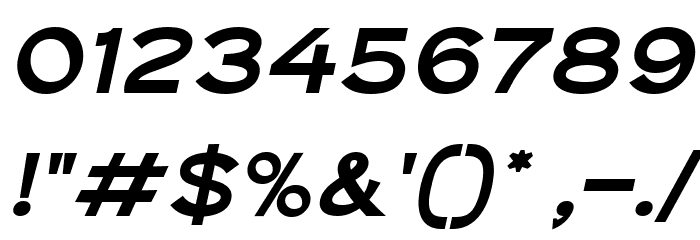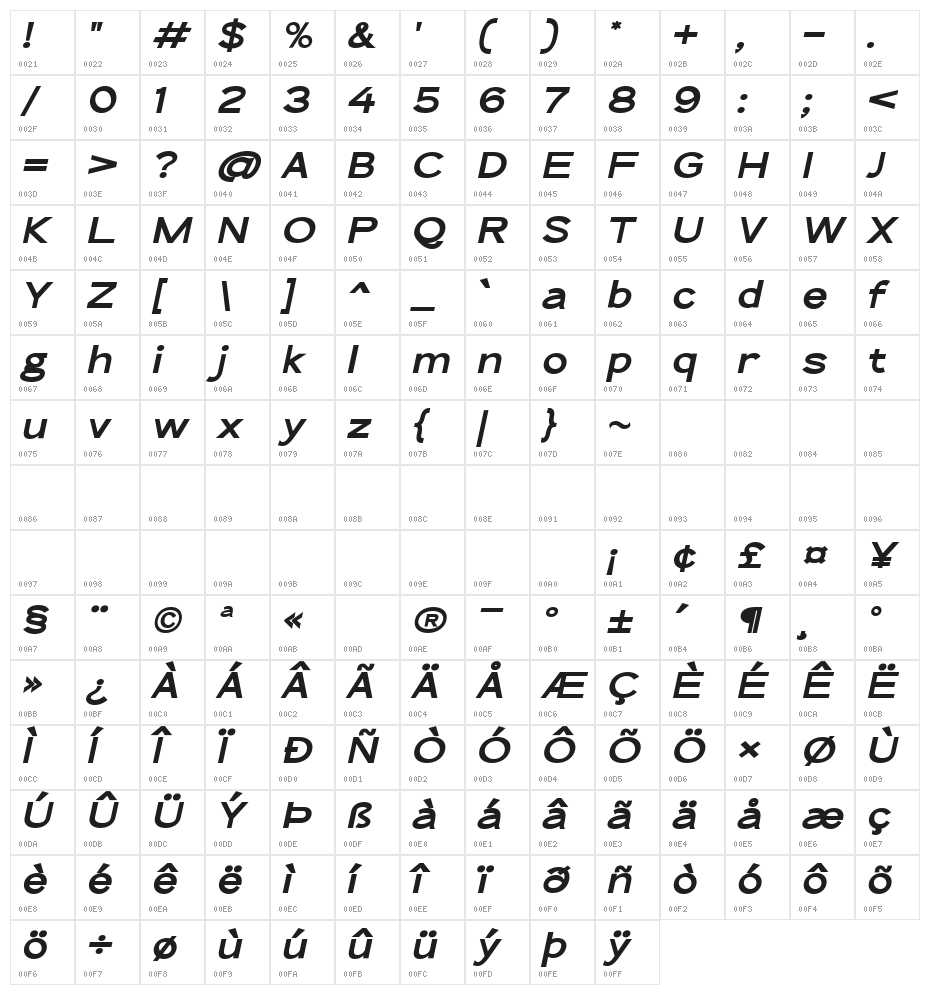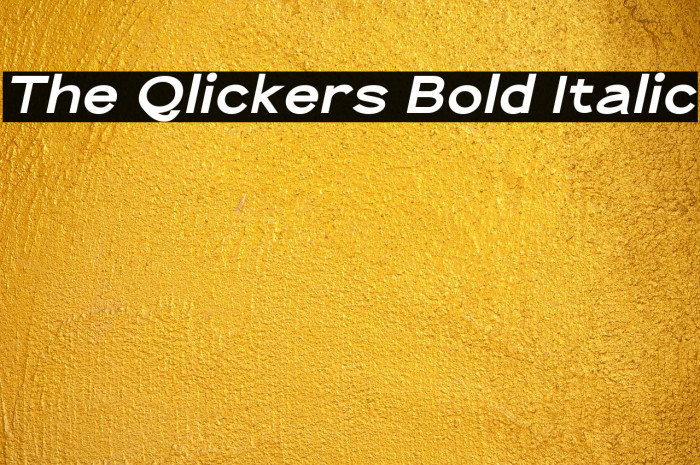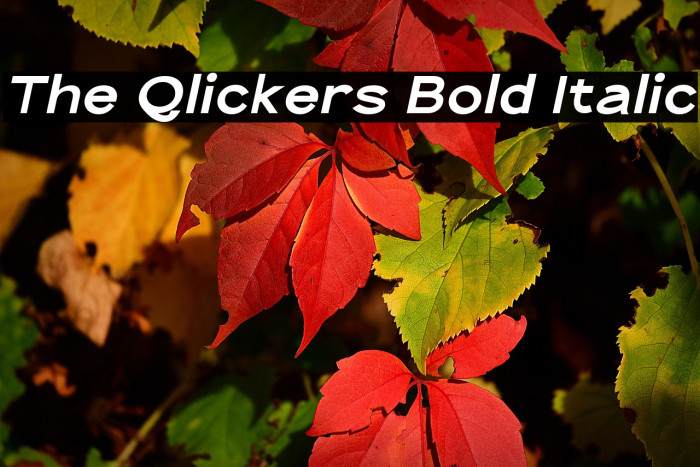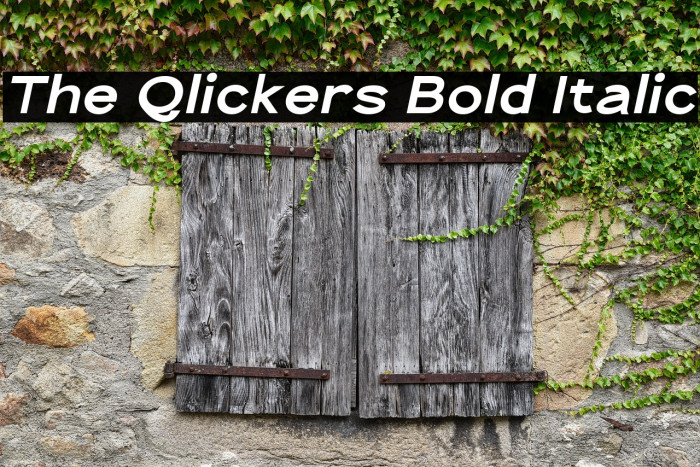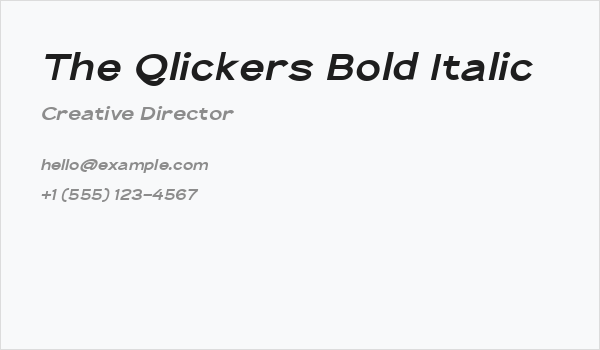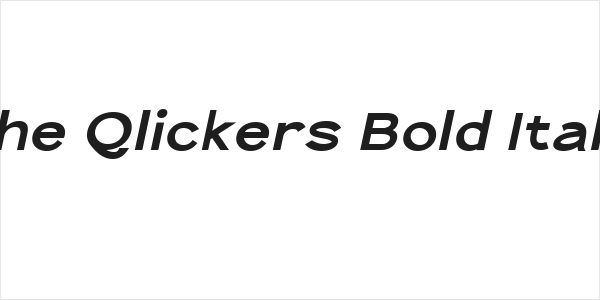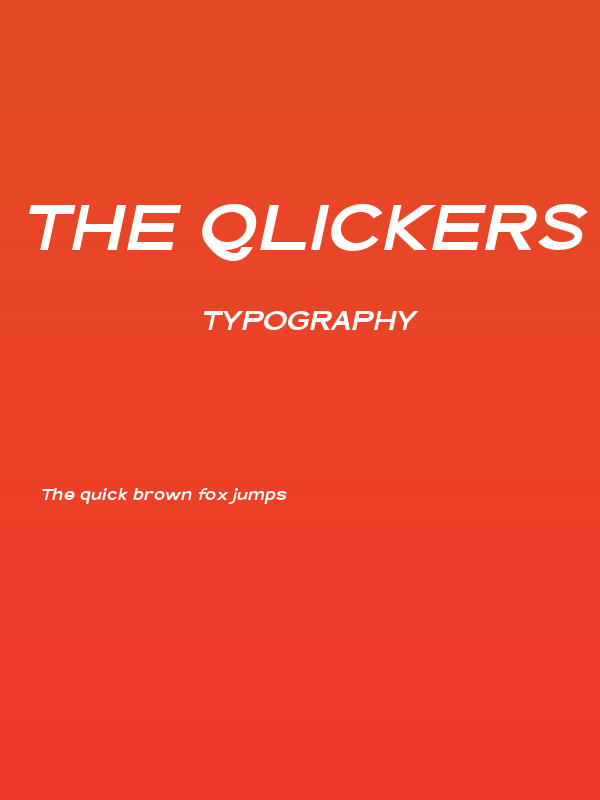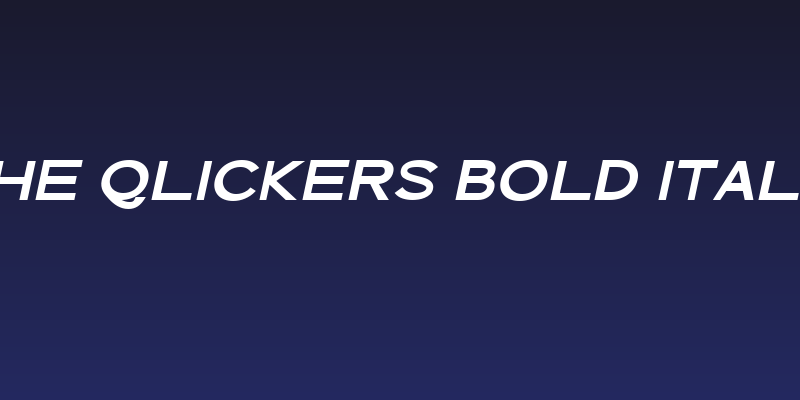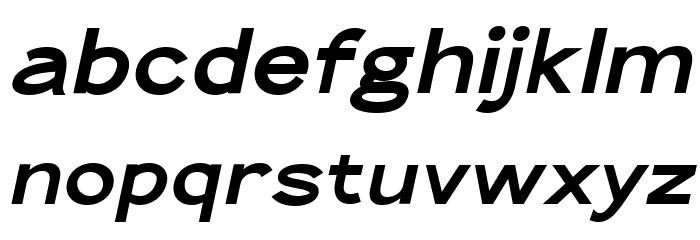
The Qlickers Bold Italic Font
This font exhibits a bold and italicized style, characterized by its slanted and robust letterforms. The uppercase and lowercase letters are well-defined, with a consistent stroke weight that enhances readability. The numerals are clear and distinct, matching the overall boldness of the alphabet. Special characters are included, maintaining the same stylistic features. The font's design is modern and sleek, making it suitable for various applications where a strong and dynamic presence is desired.
| Use Case | Headlines, Logos, Branding |
| Proposed Projects | Ideal for branding, advertising, headlines, and digital media where a strong and dynamic impression is needed. |